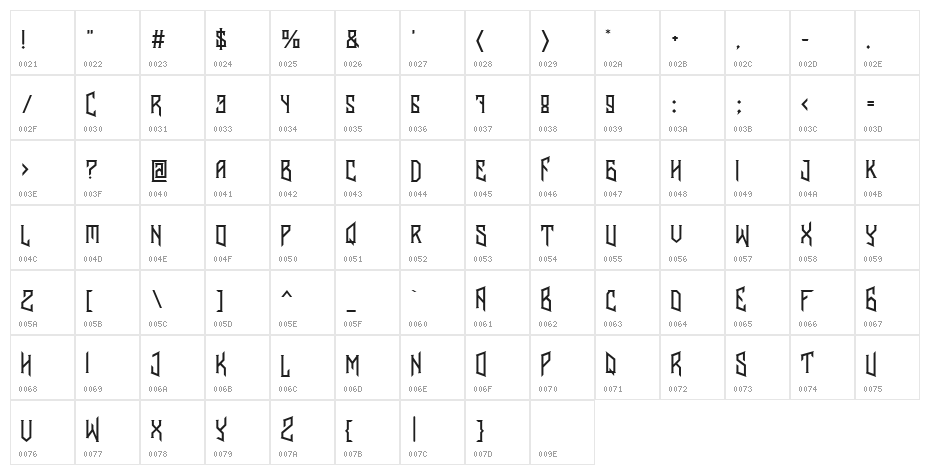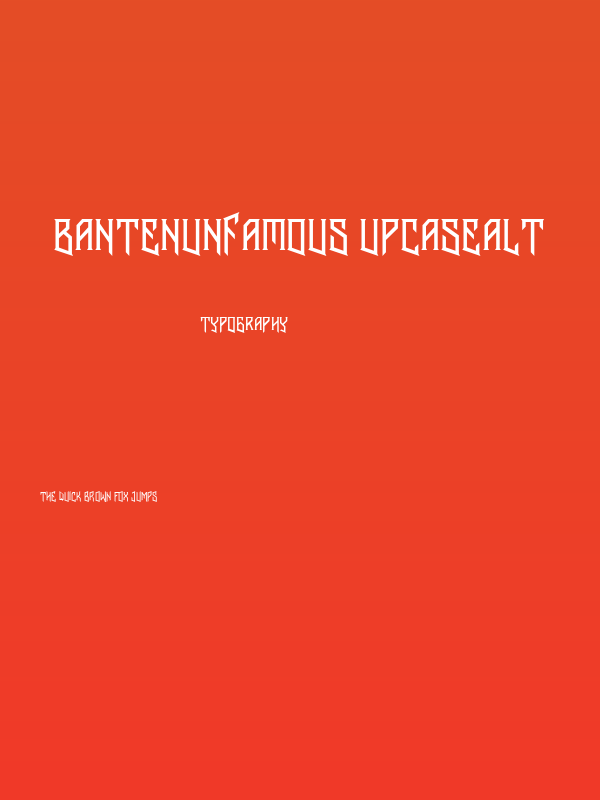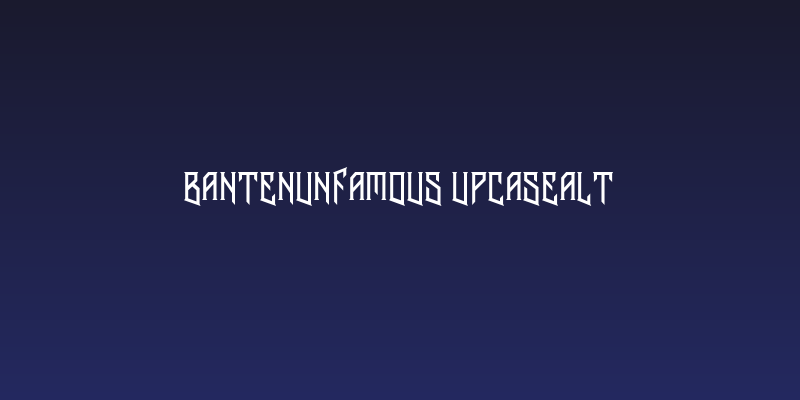
BantenUnfamous2UpcaseAlt Font
BantenUnfamous2UpcaseAlt Description
This font features a bold, angular design with a distinct geometric flair. The characters are sharply defined with pointed edges and a consistent stroke width, giving it a strong and assertive appearance. The uppercase letters are particularly striking, with a unique blend of traditional and modern elements. The numbers and special characters maintain the same angular style, ensuring a cohesive look throughout. This font is ideal for projects that require a bold statement, such as branding, posters, or any design that needs to capture attention with its edgy and contemporary aesthetic.
| Proposed Projects | Ideal for branding, posters, and attention-grabbing designs. |